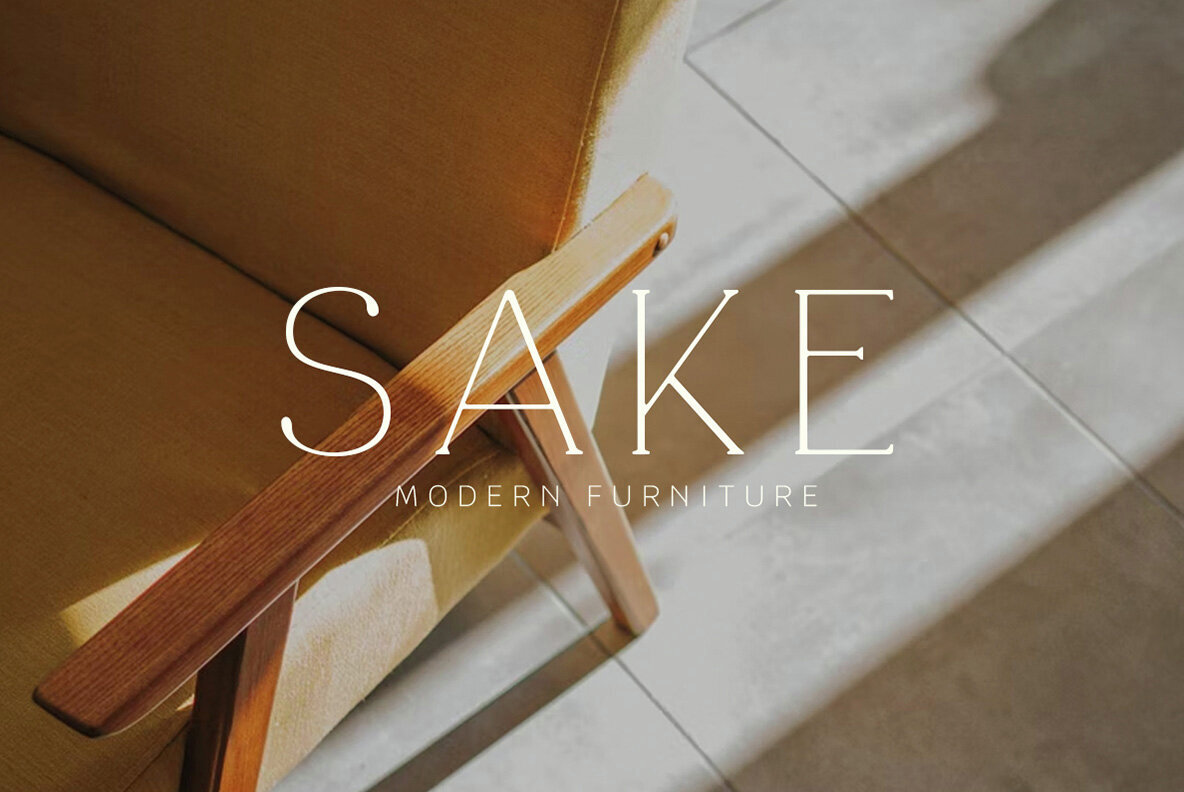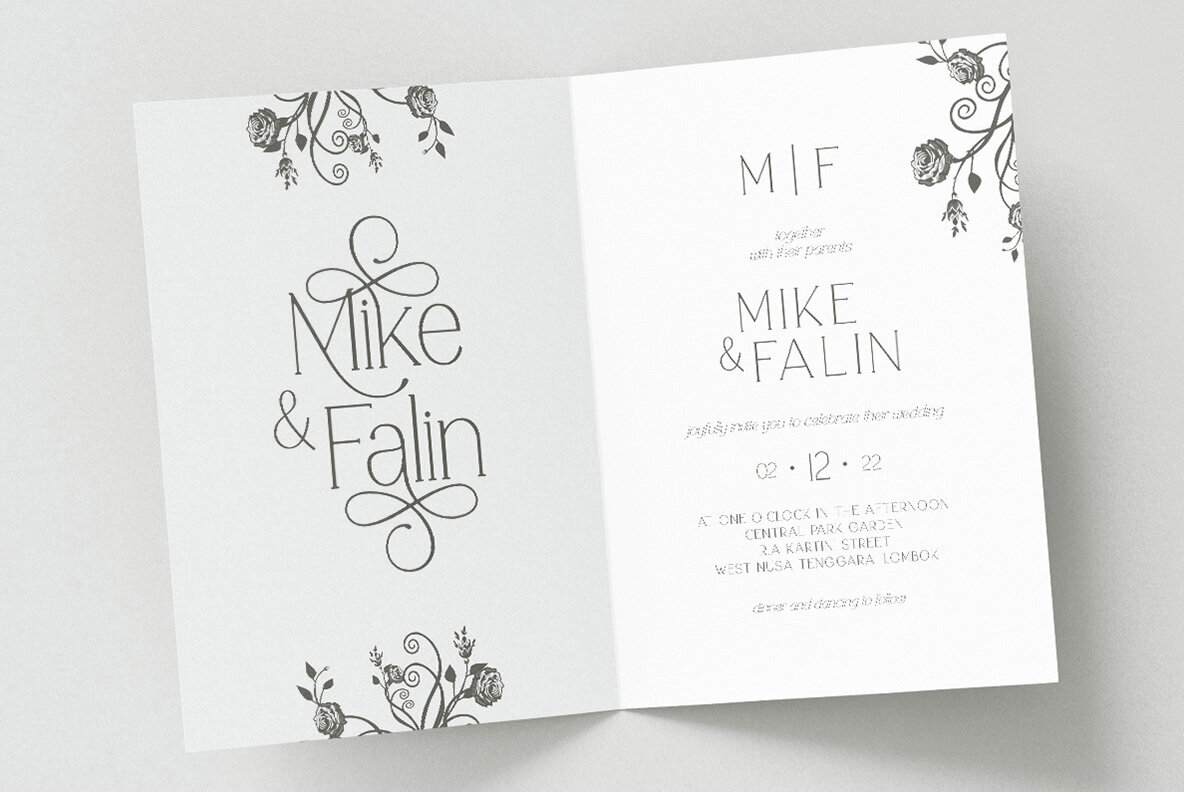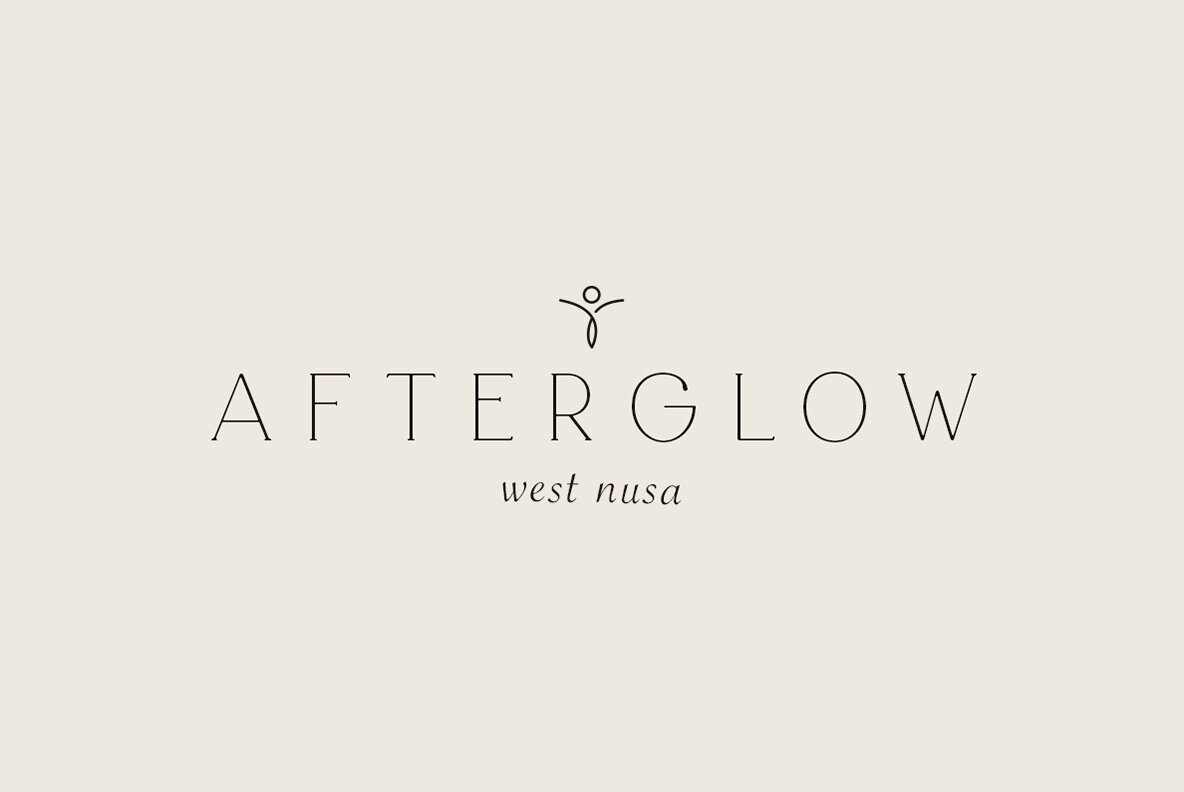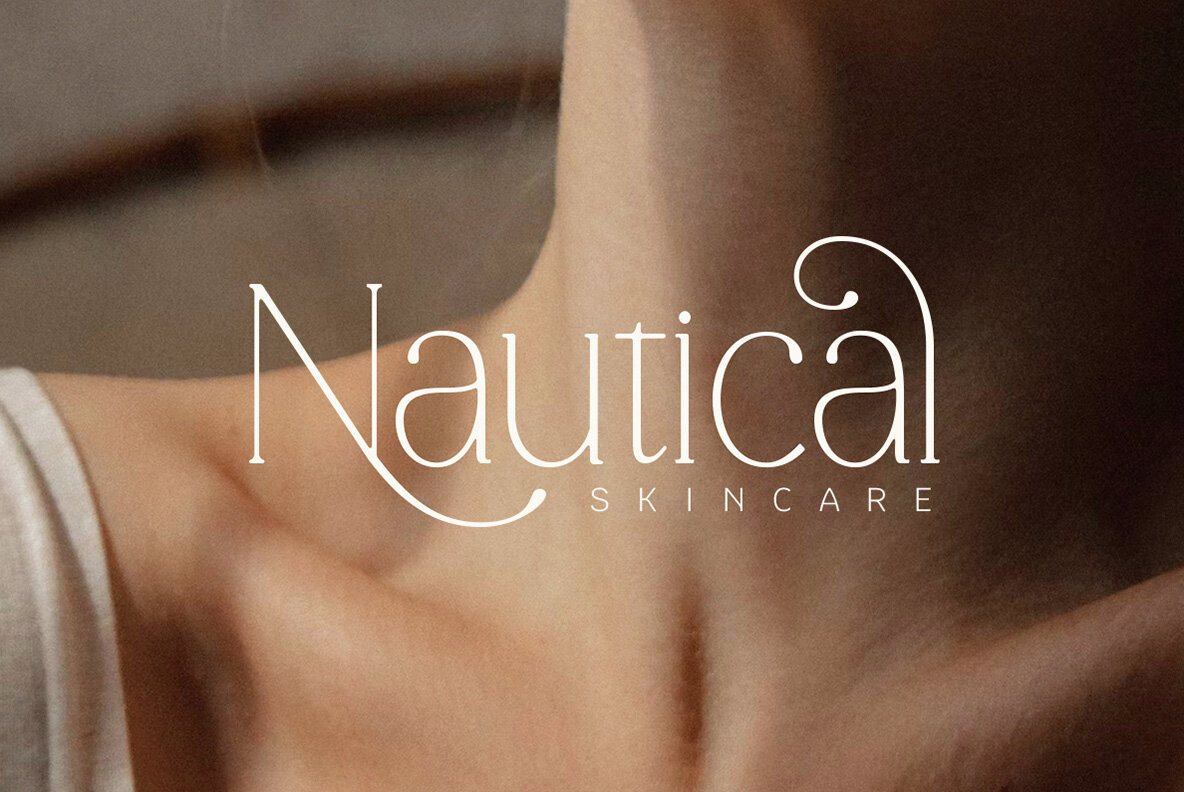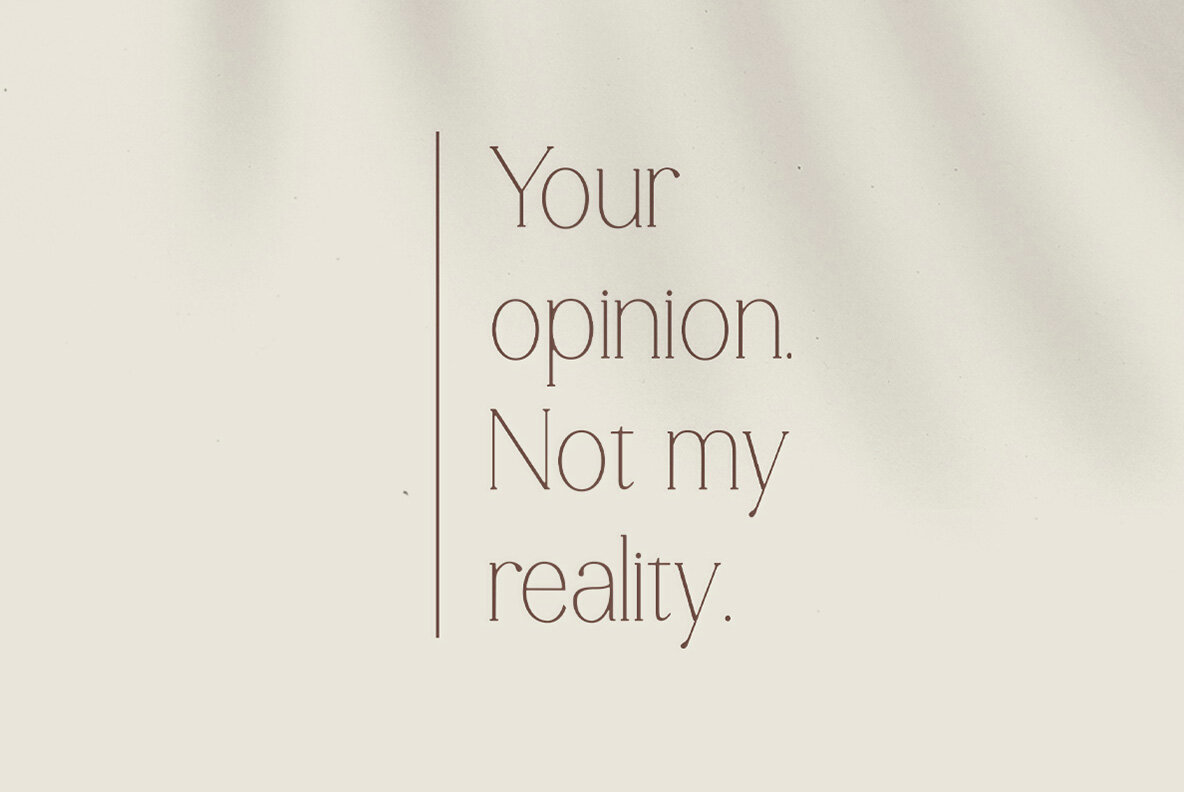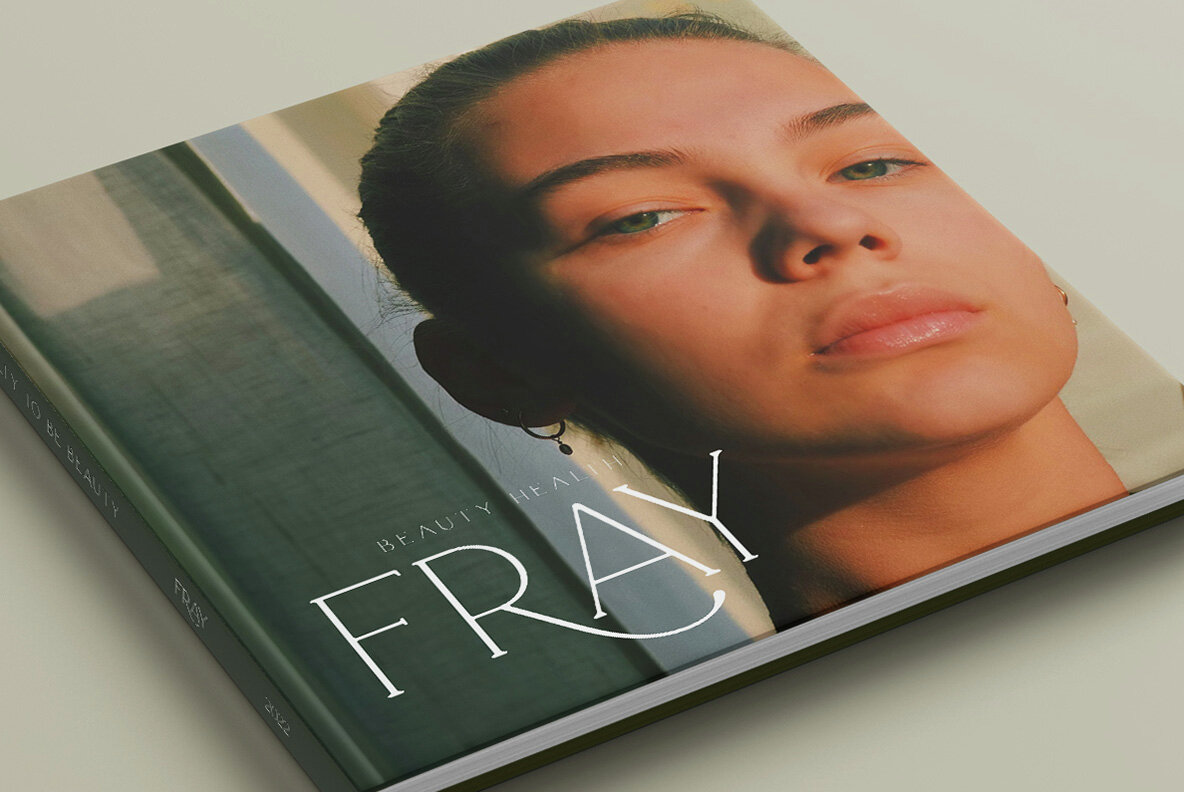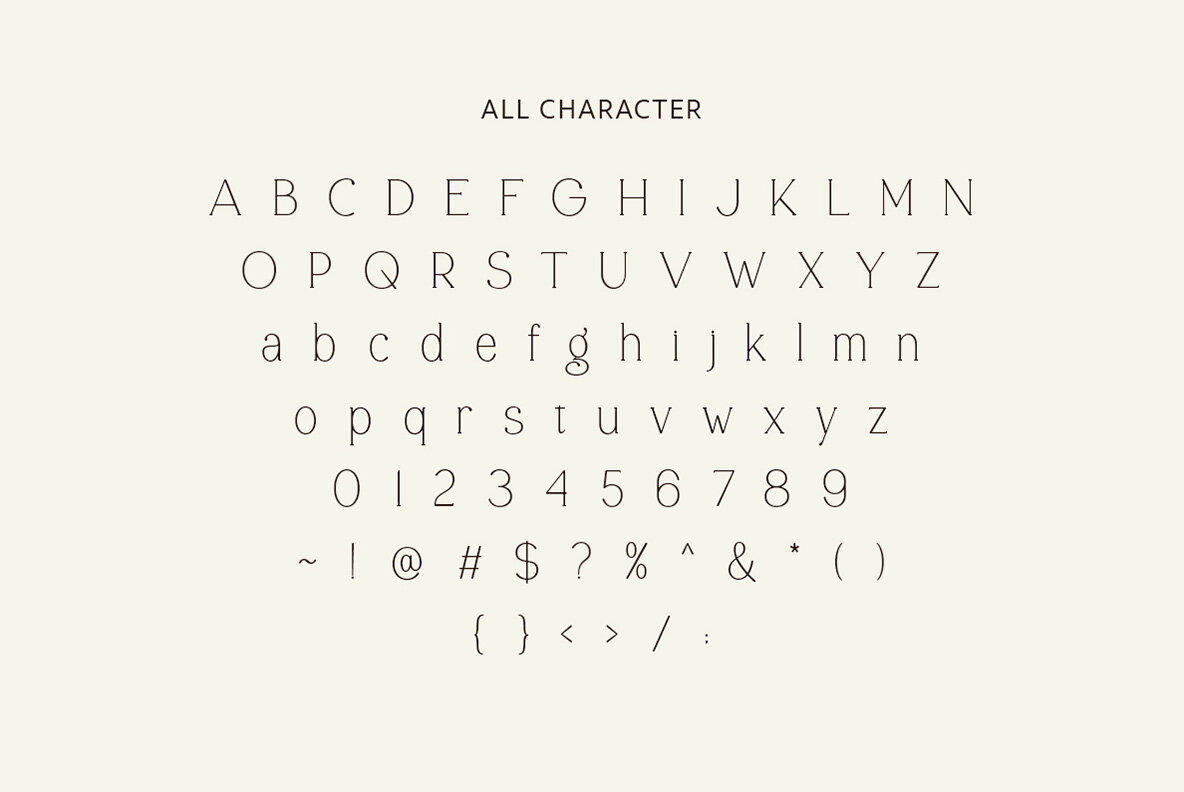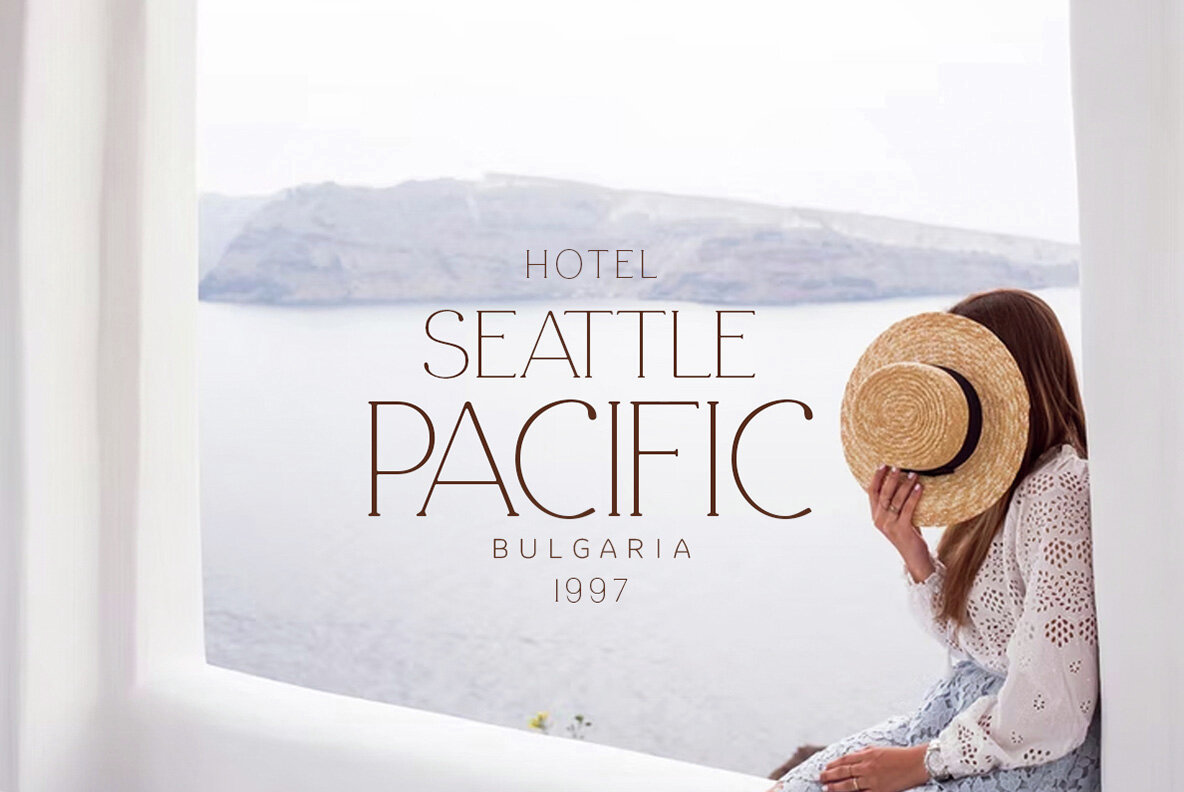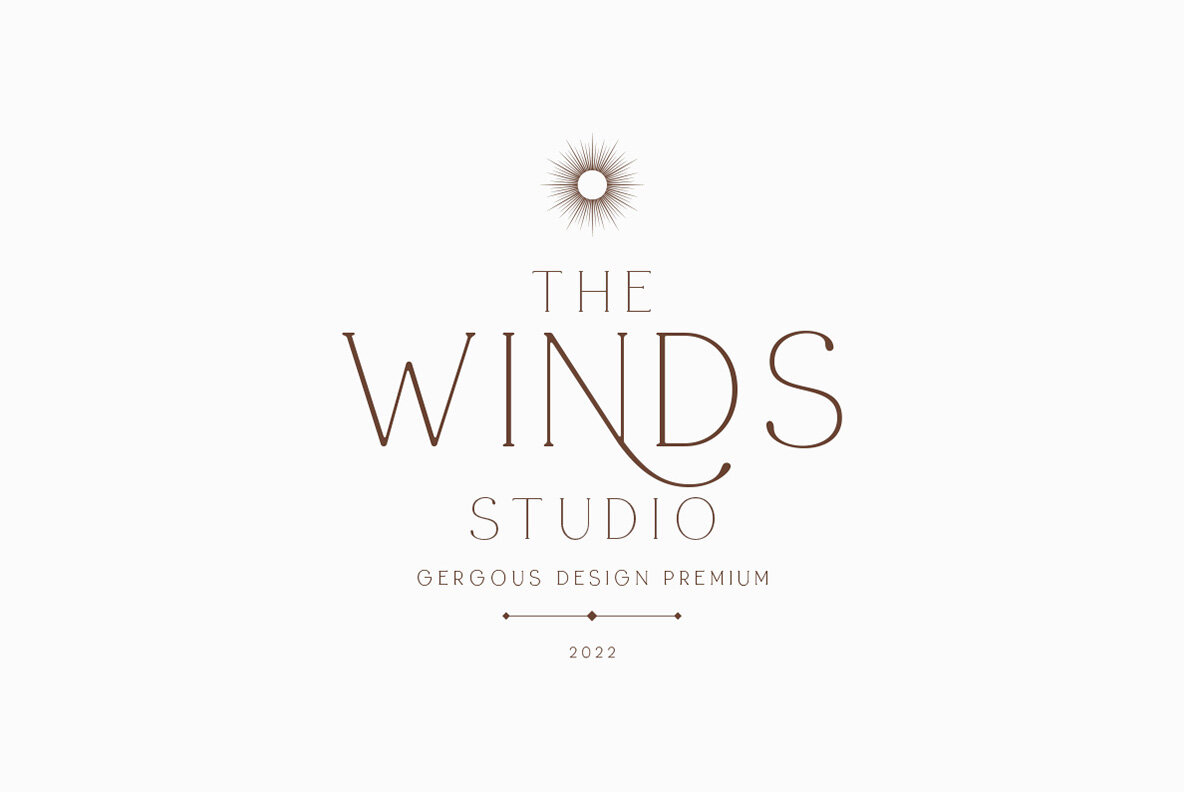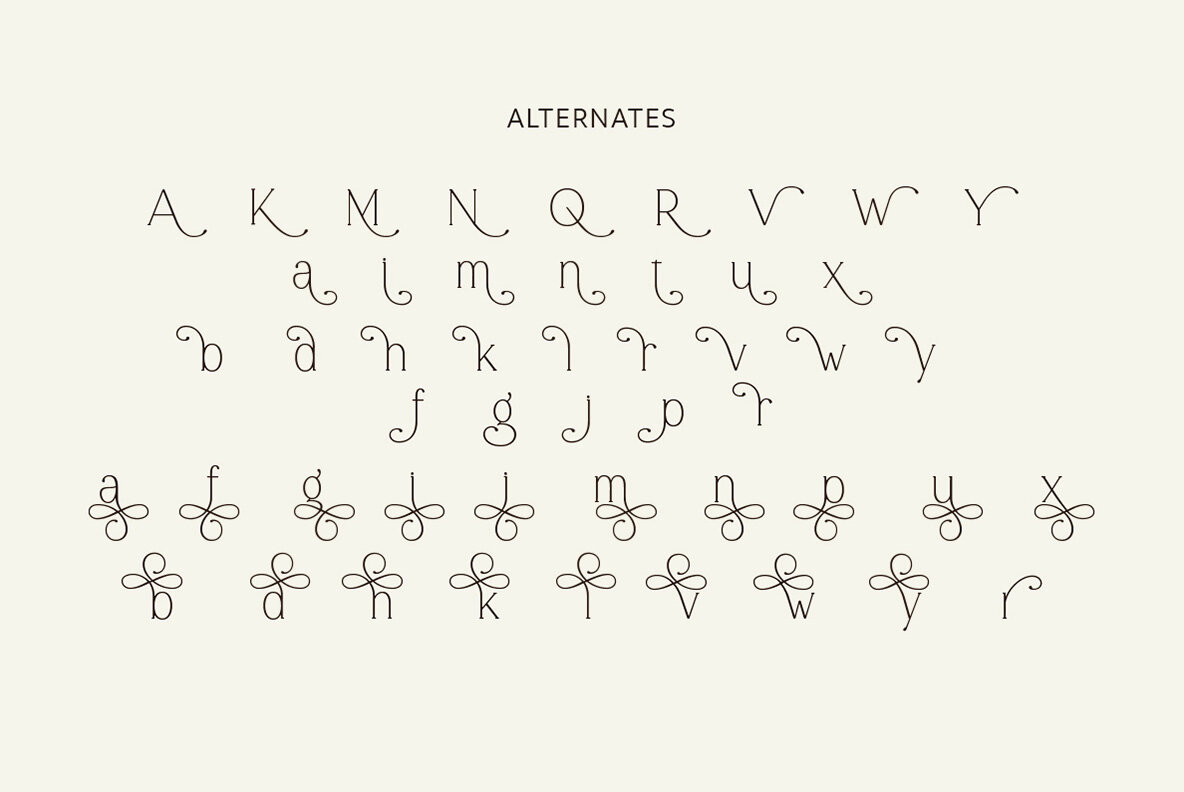
Fairy Dreams Font
Fairy Dreams Regular
Fairy Dreams is a minimalist and modern serif that comes with alternates and swash. You can use this font for any project especially that require simple and elegant looks such as branding, logo, wedding invitations and more. This font also support multilingual.